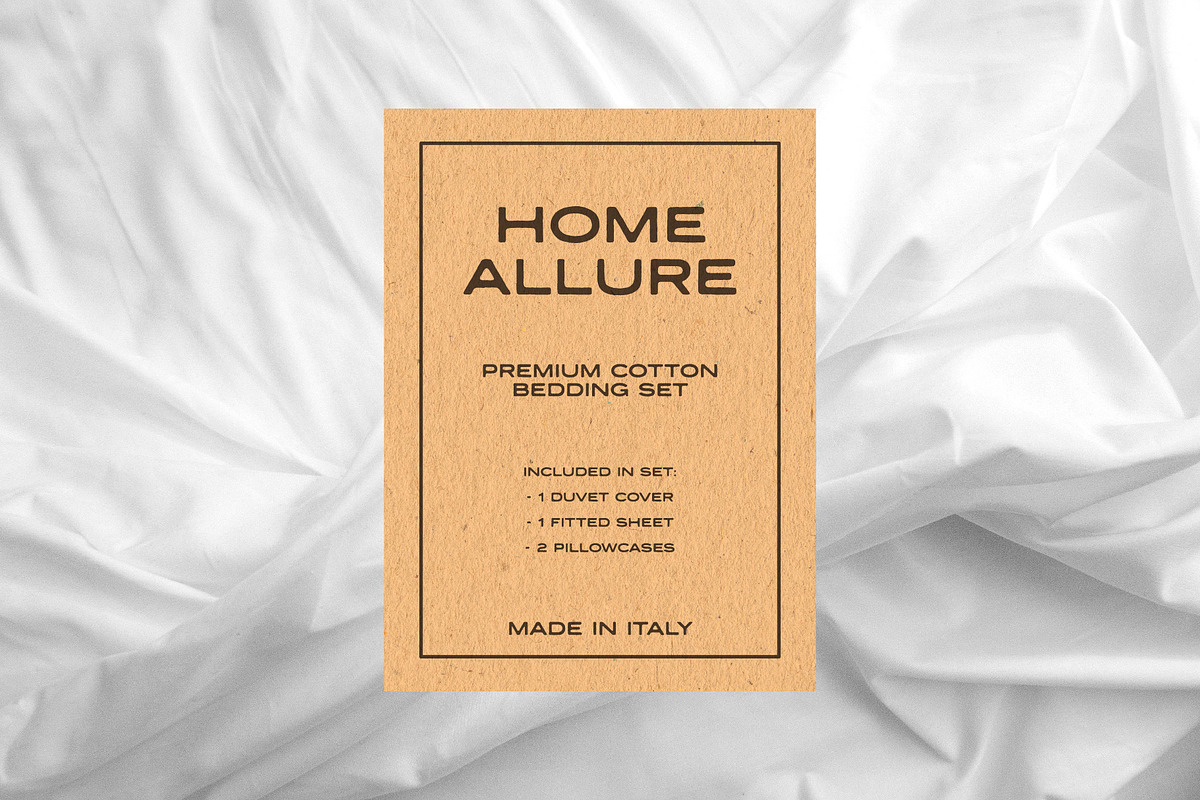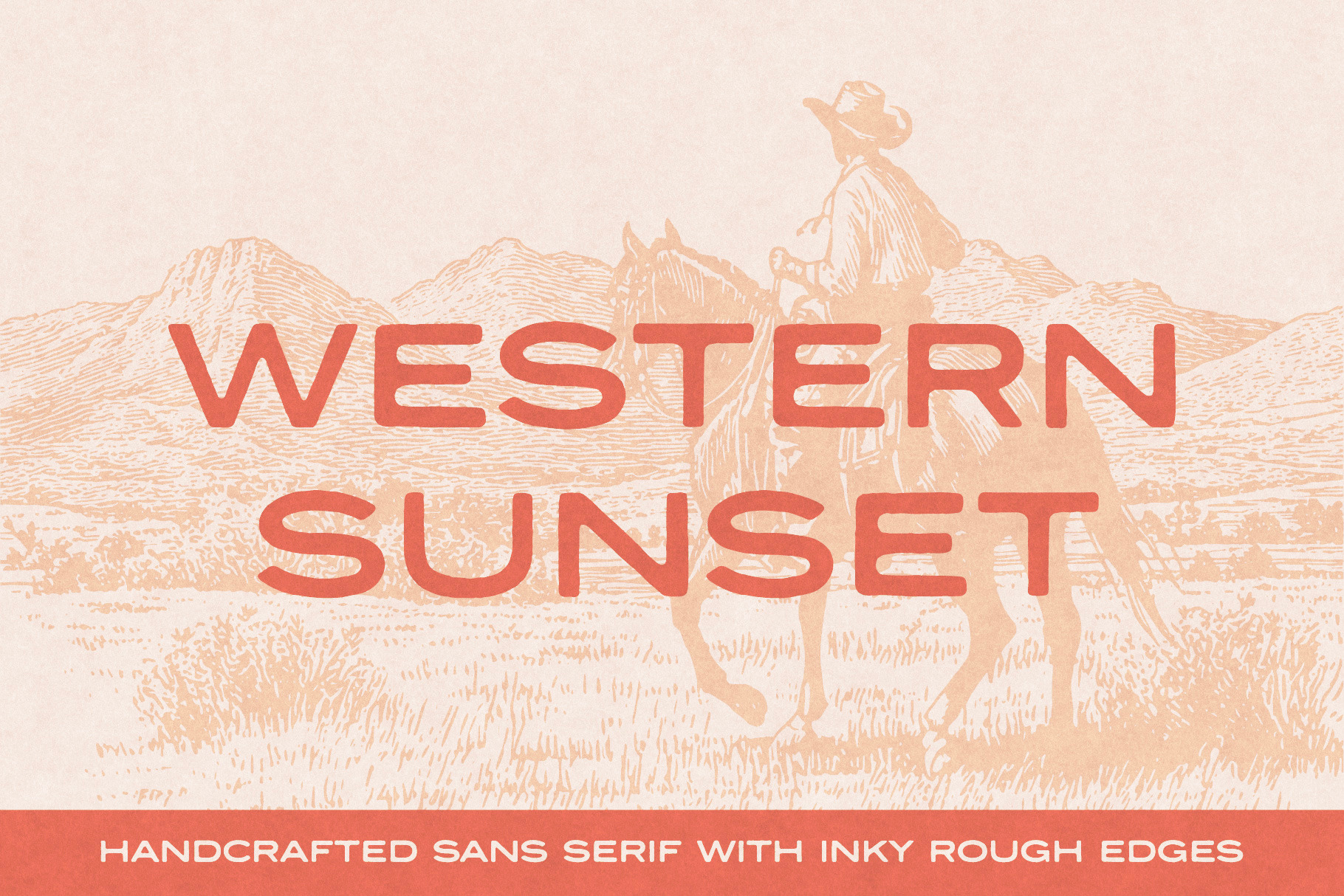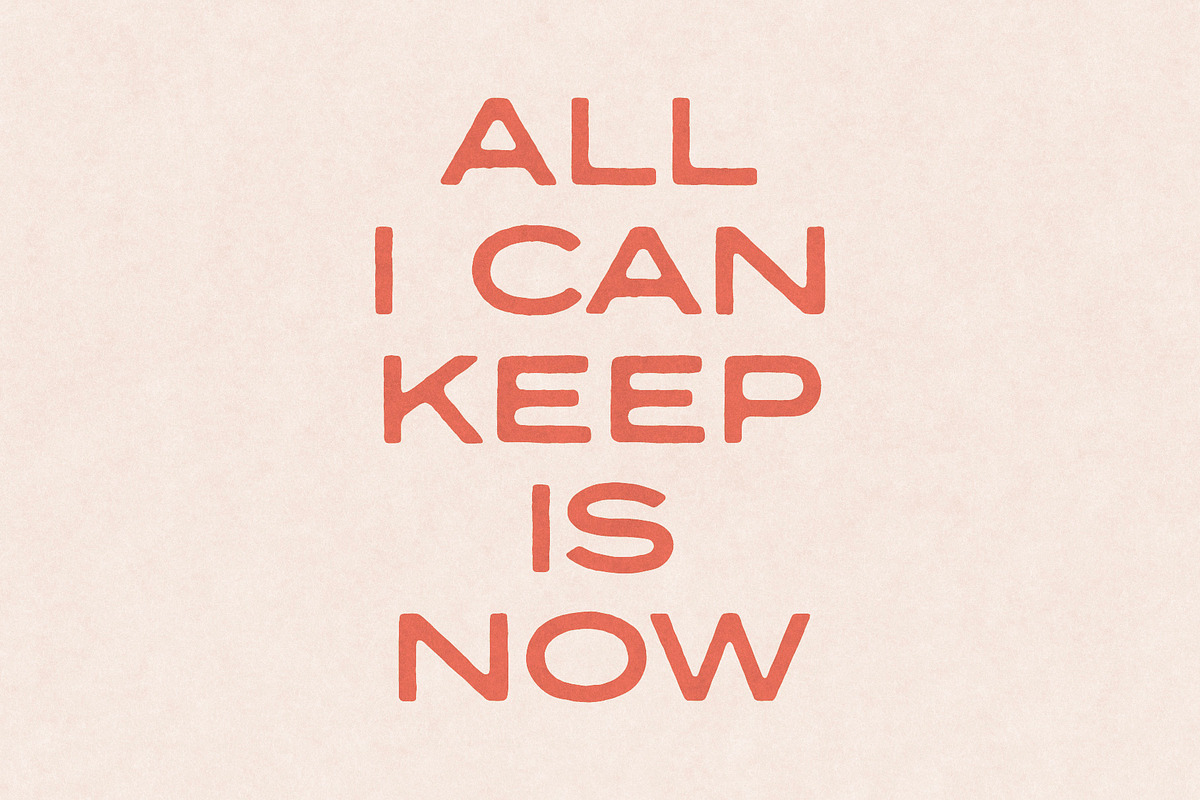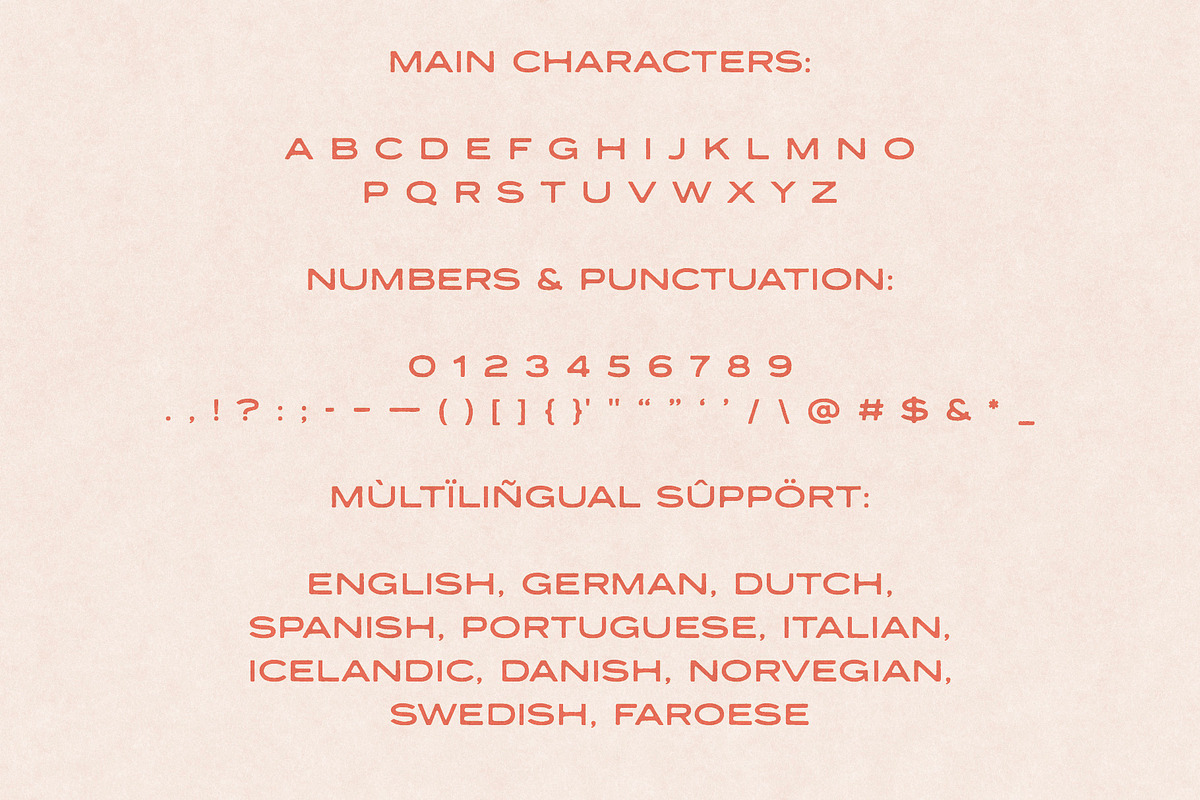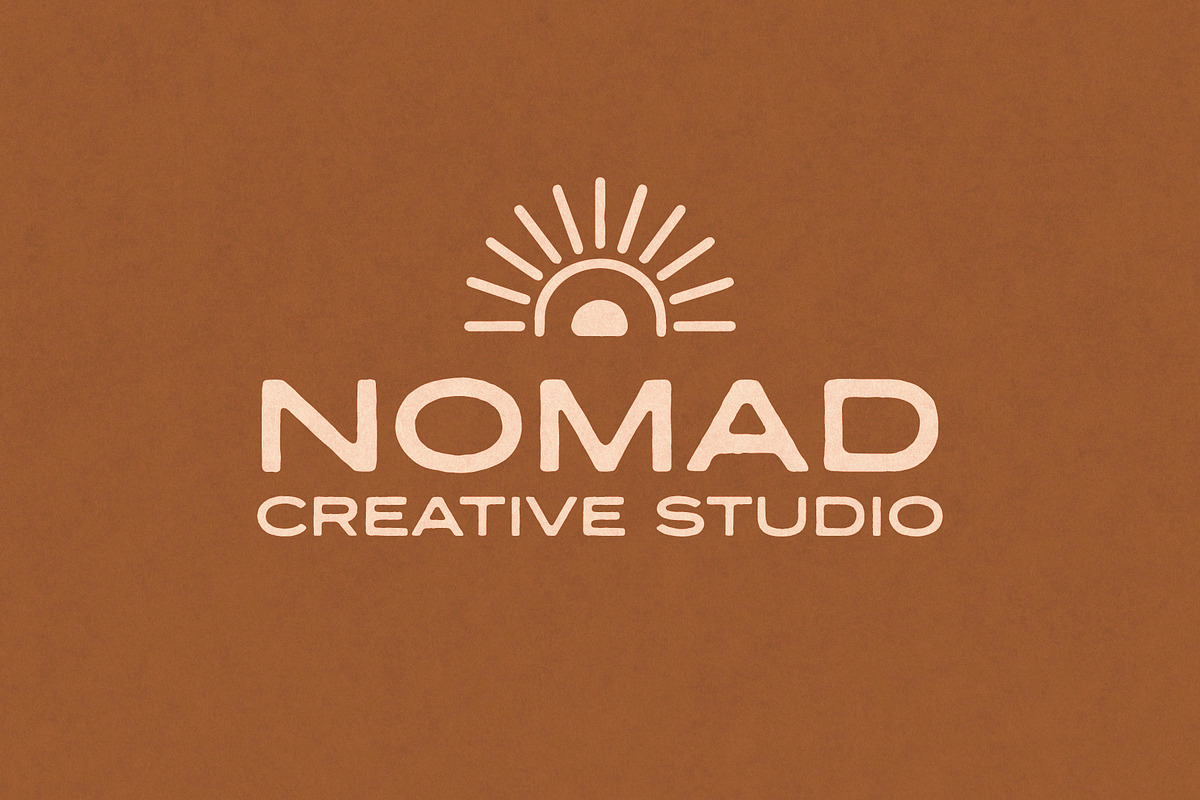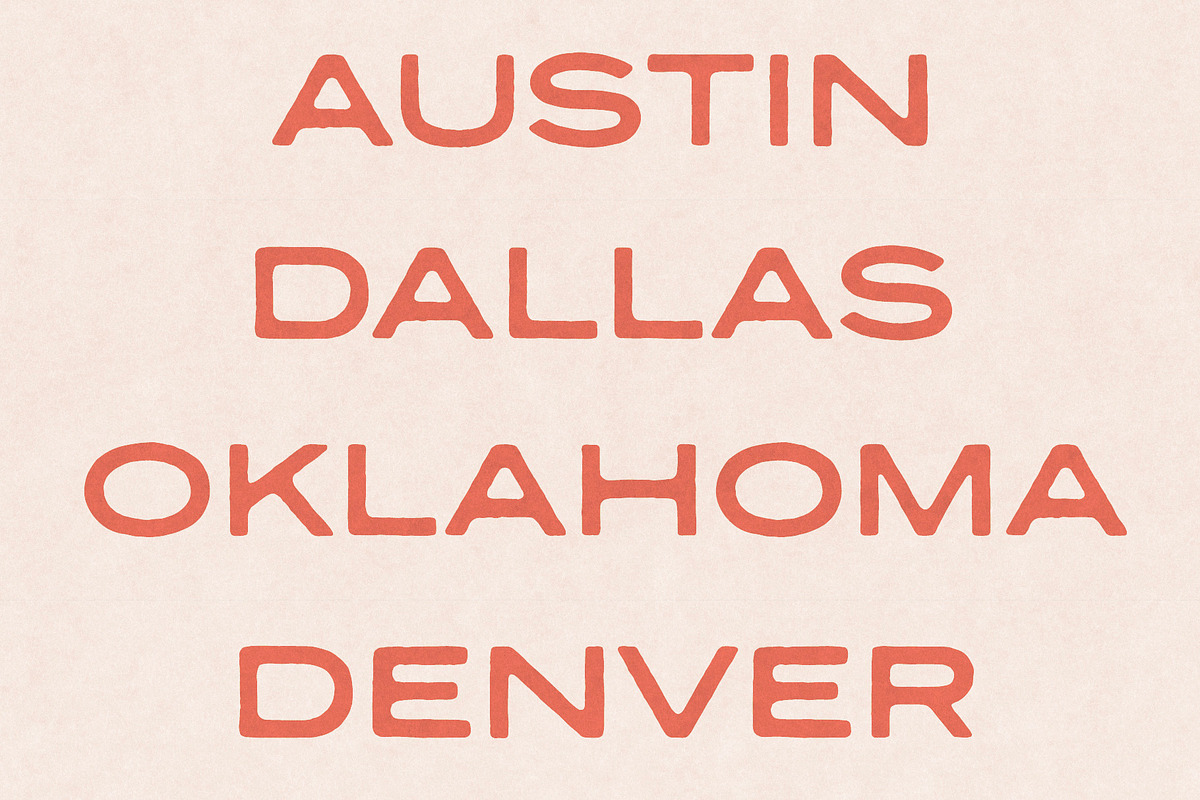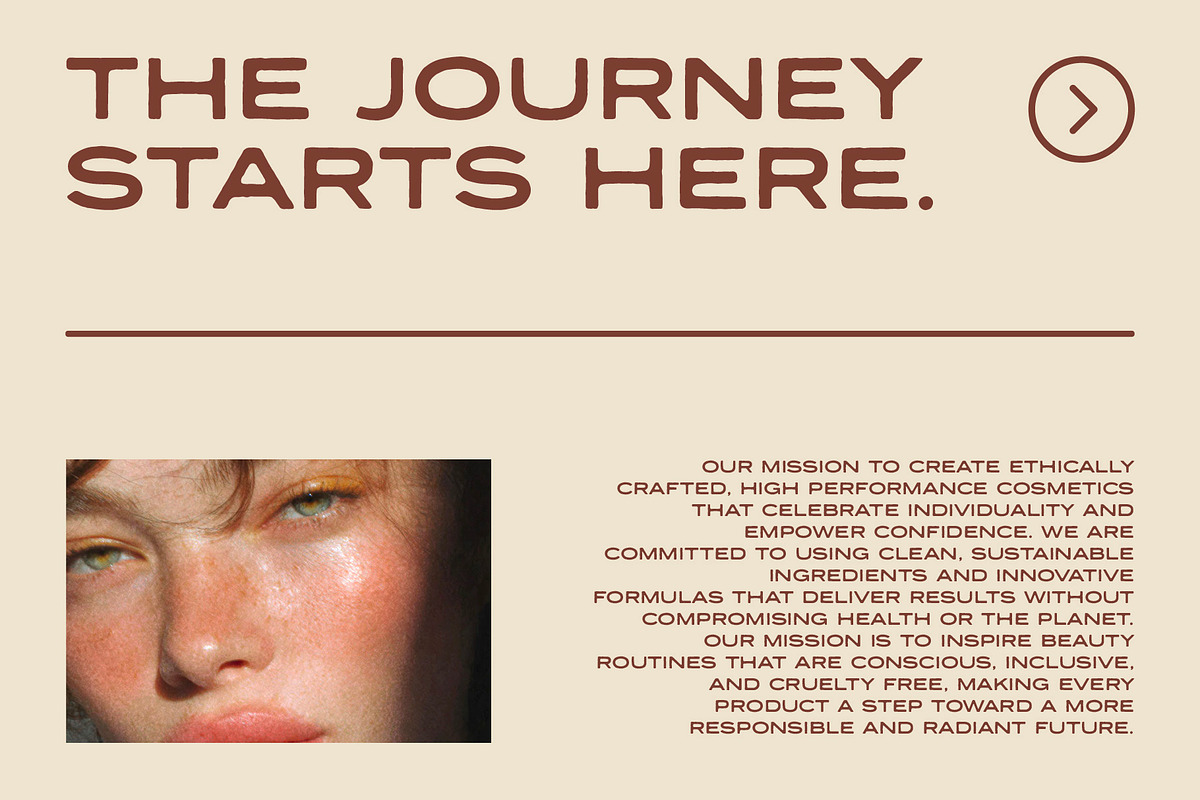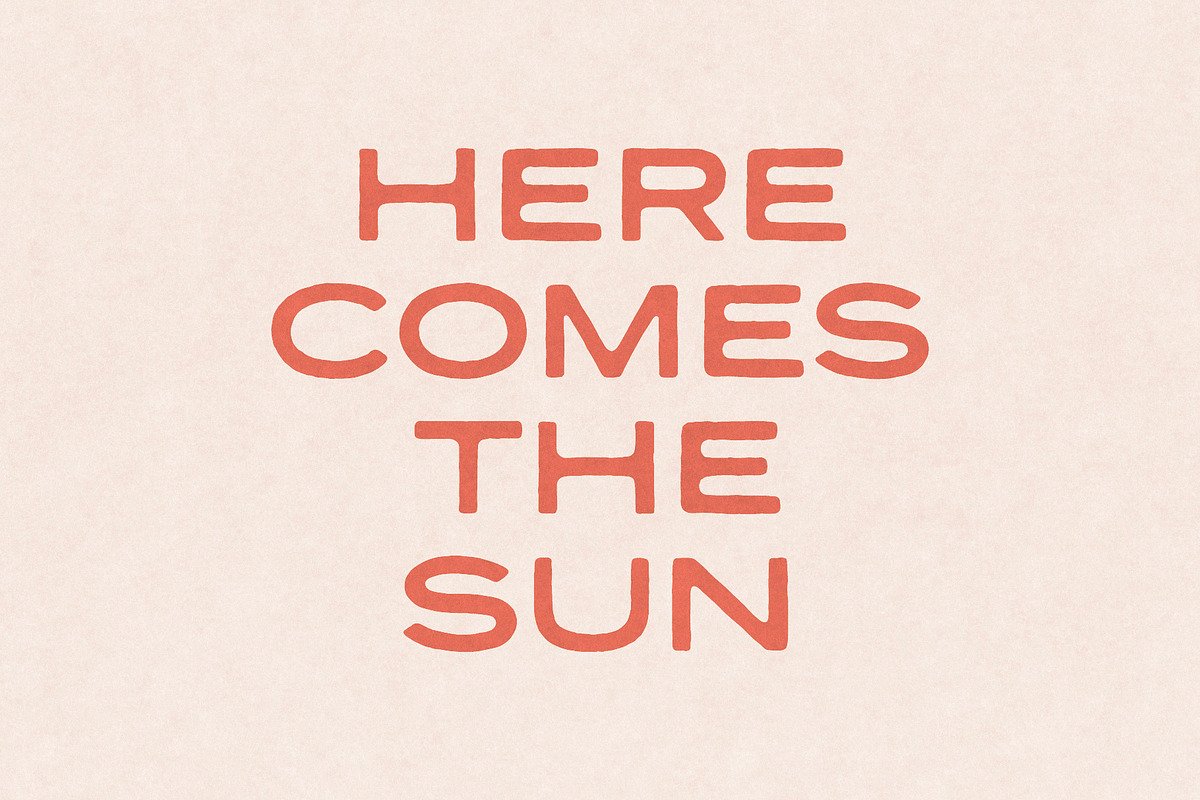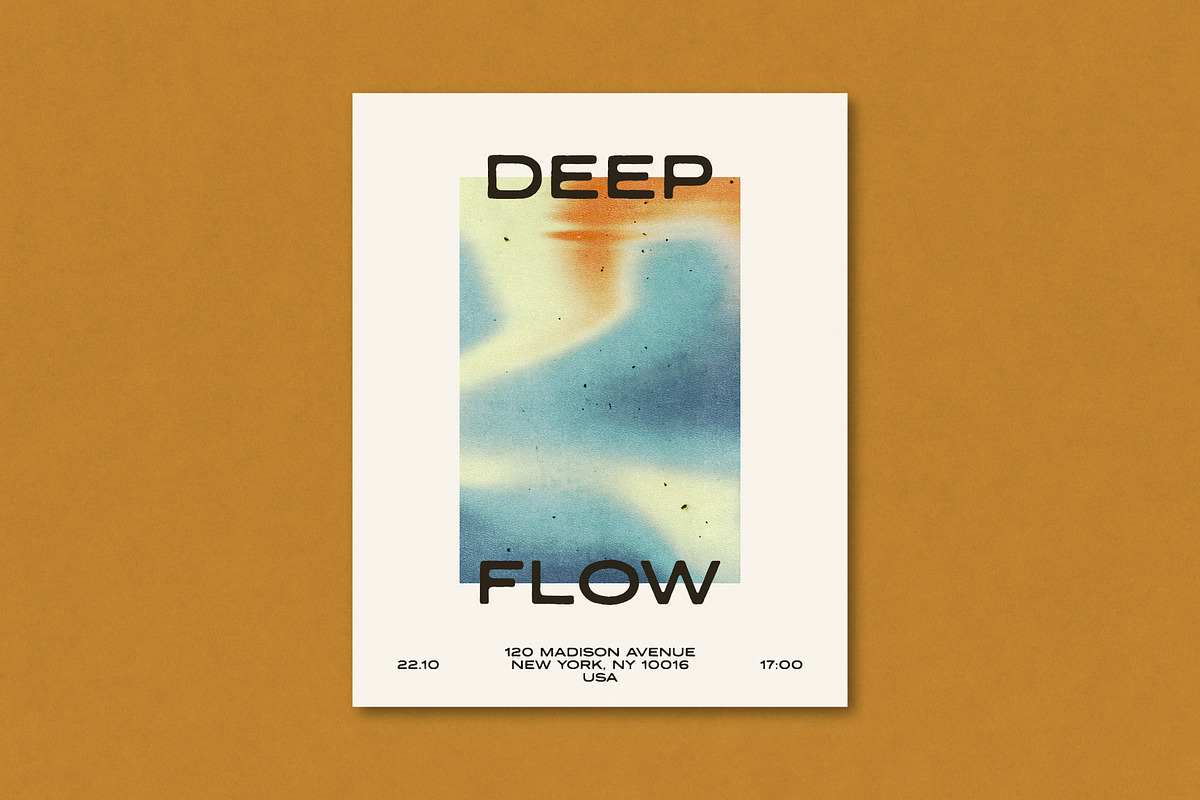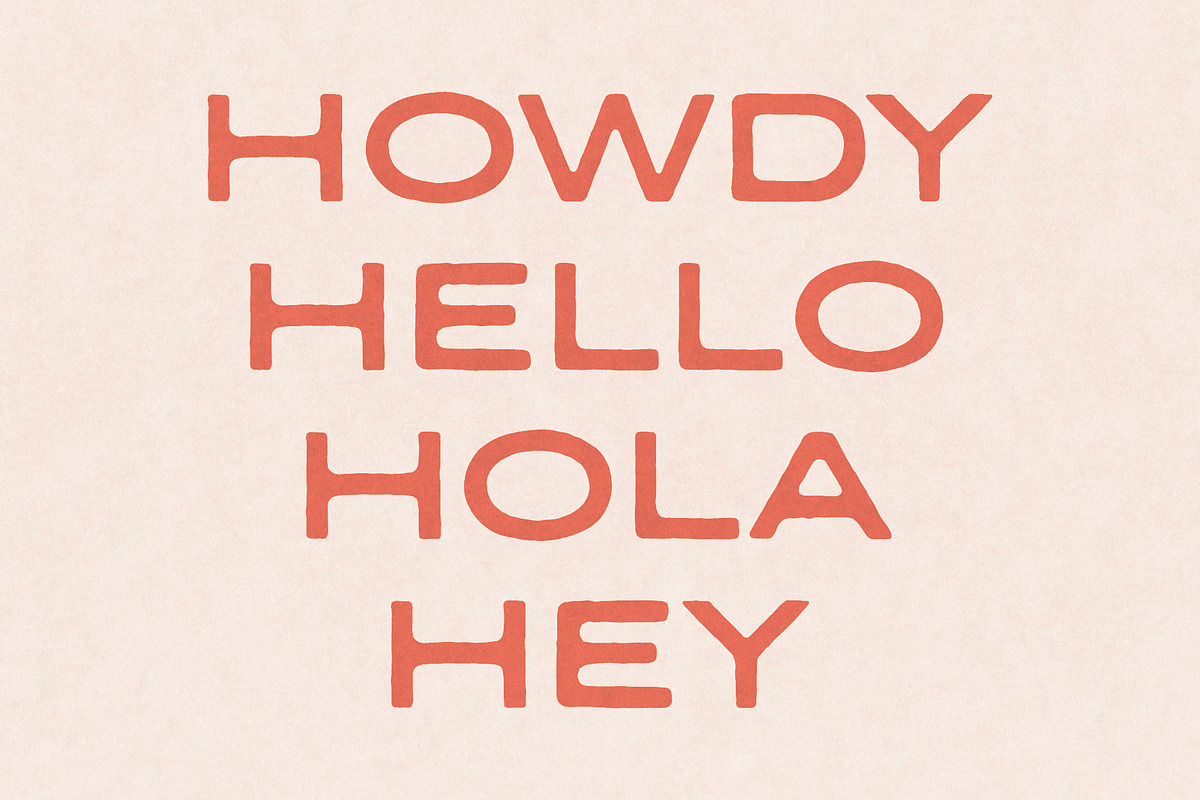
Western Sunset Sans Serif Font
Western Sunset is a handcrafted sans serif font designed with inky, rough edged details that bring personality and character to every letter. Perfect for posters, logos, packaging, signage, and branding, this font balances bold readability with organic, handcrafted warmth.
Multilingual support for Basic Latin and Western European languages (English, German, Dutch, Spanish, Portuguese, Italian,
Icelandic, Danish, Norvegian, Swedish, Faroese).